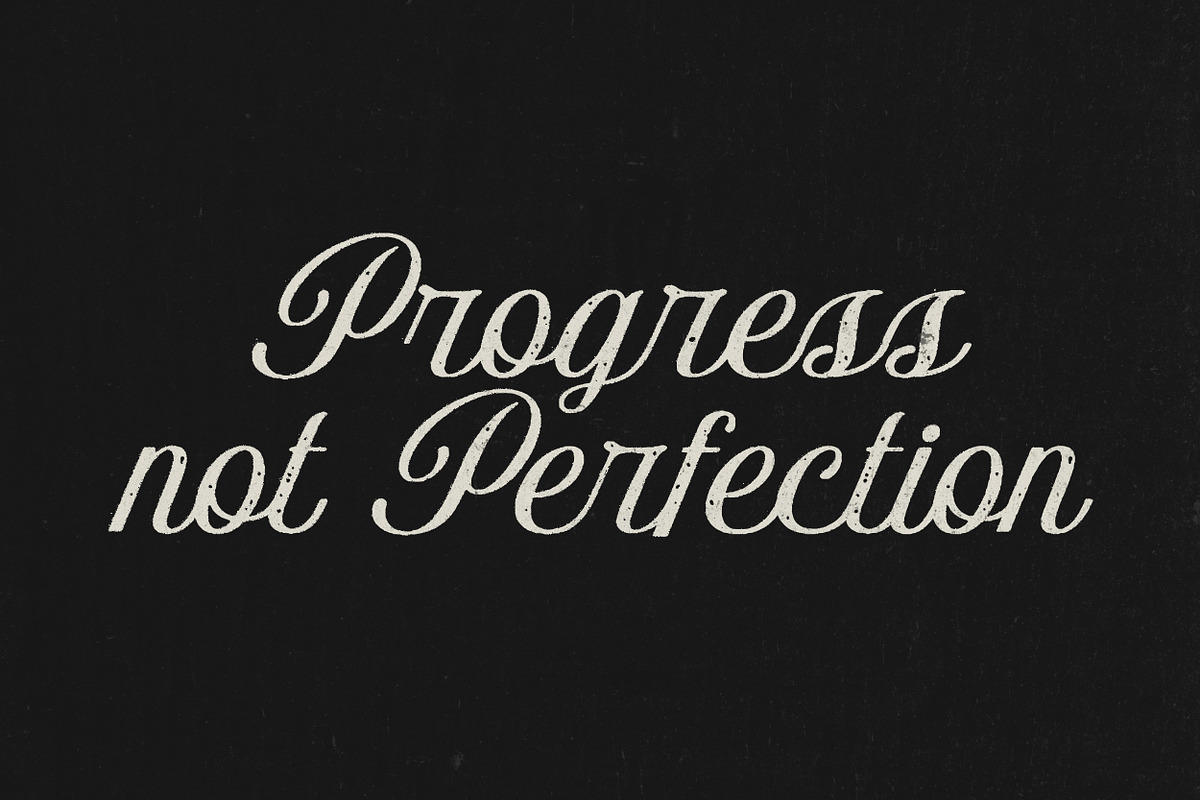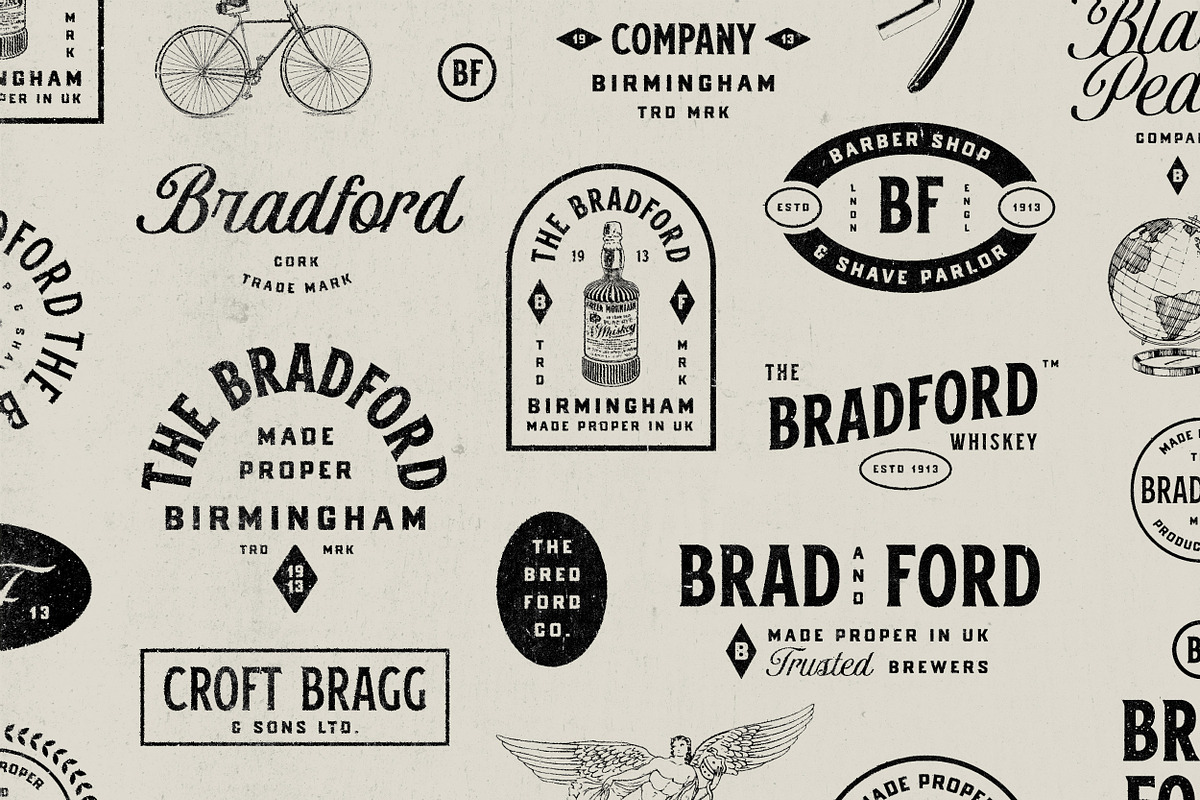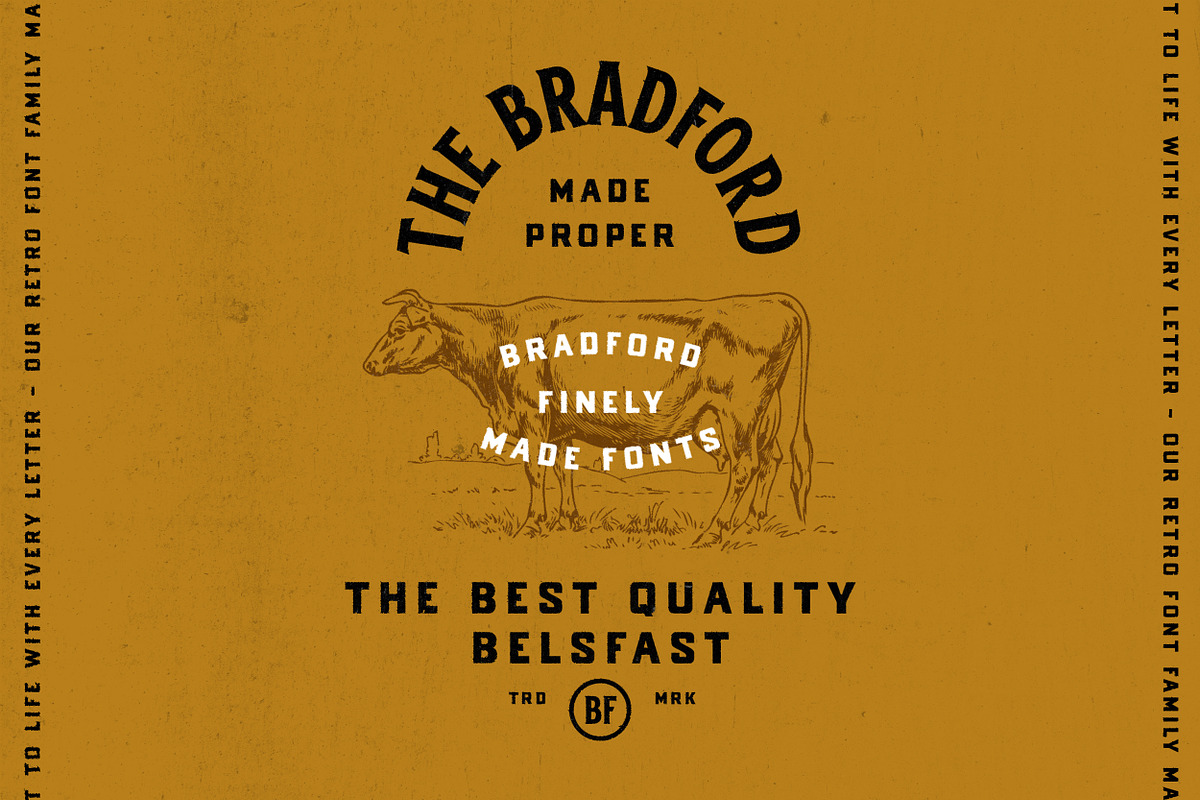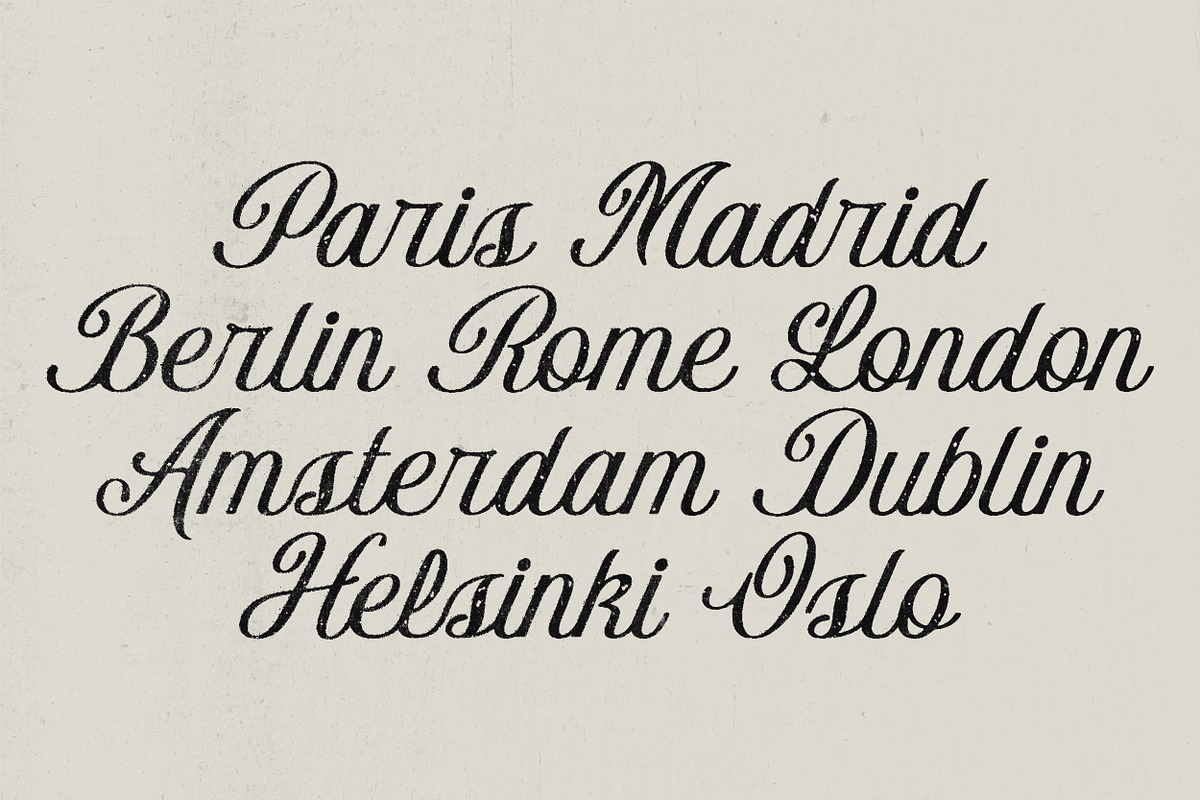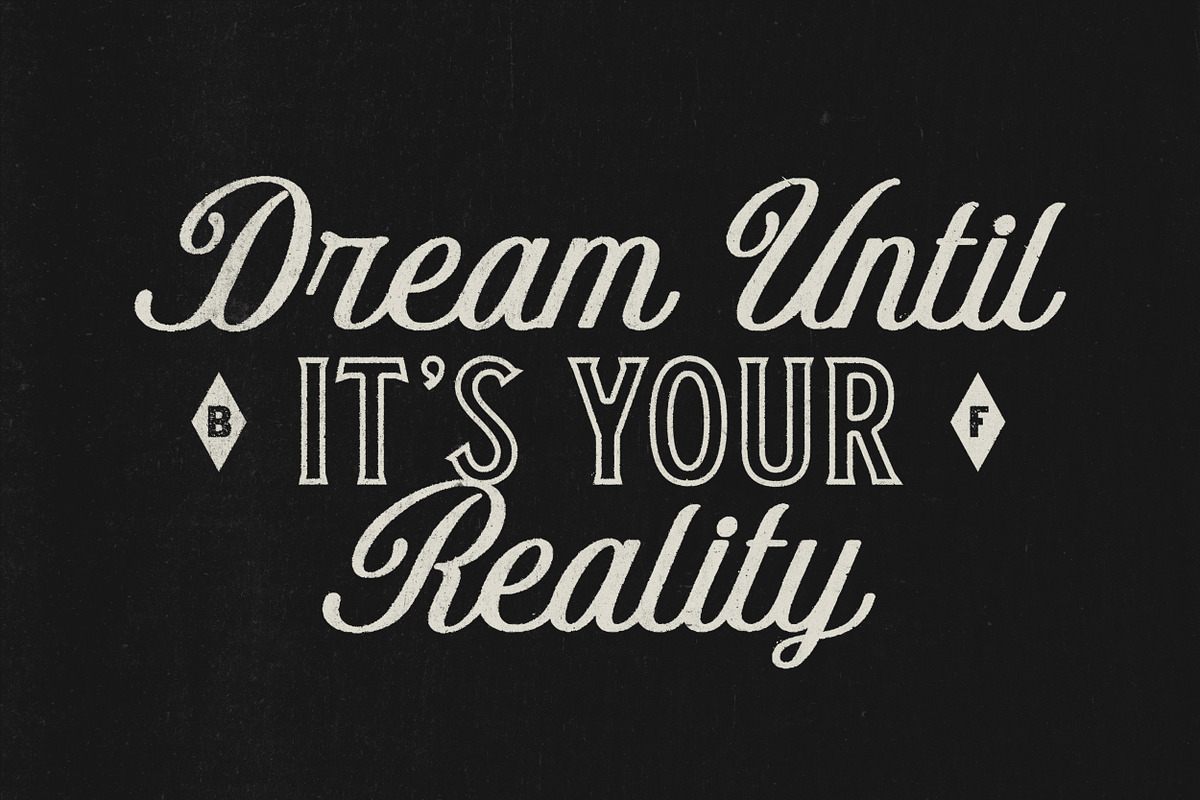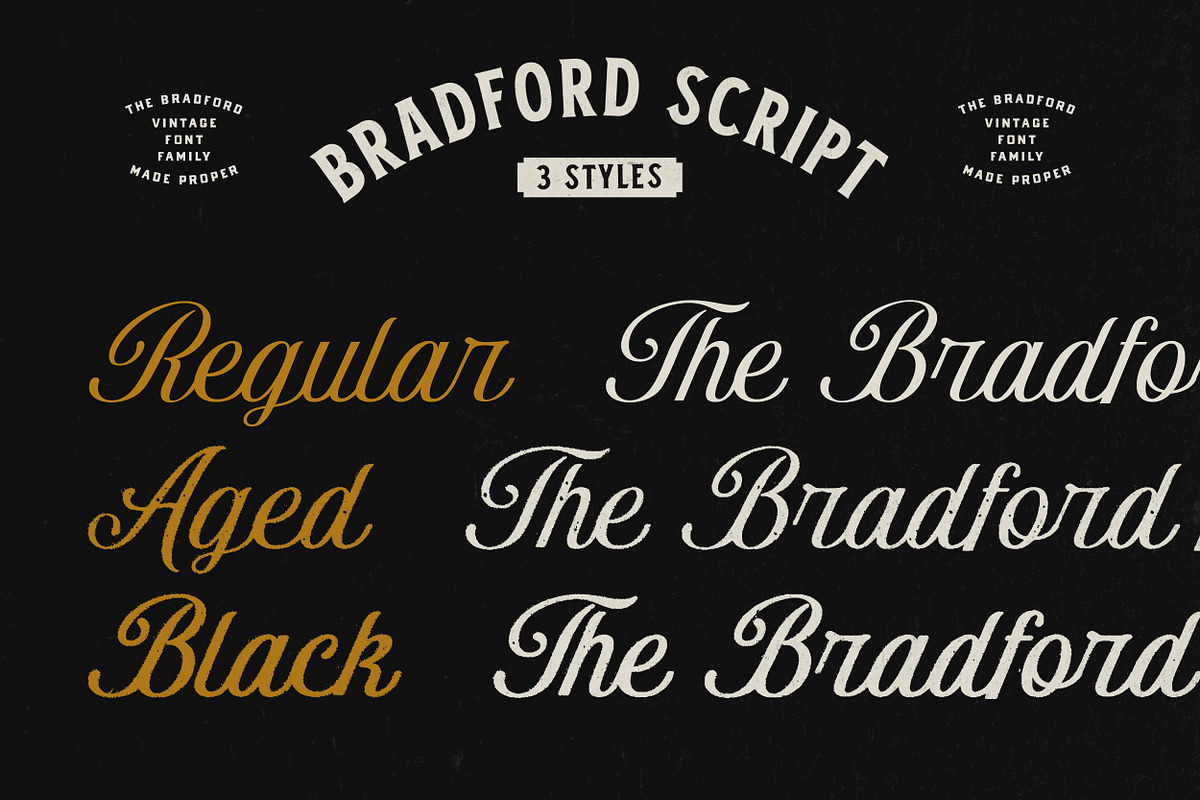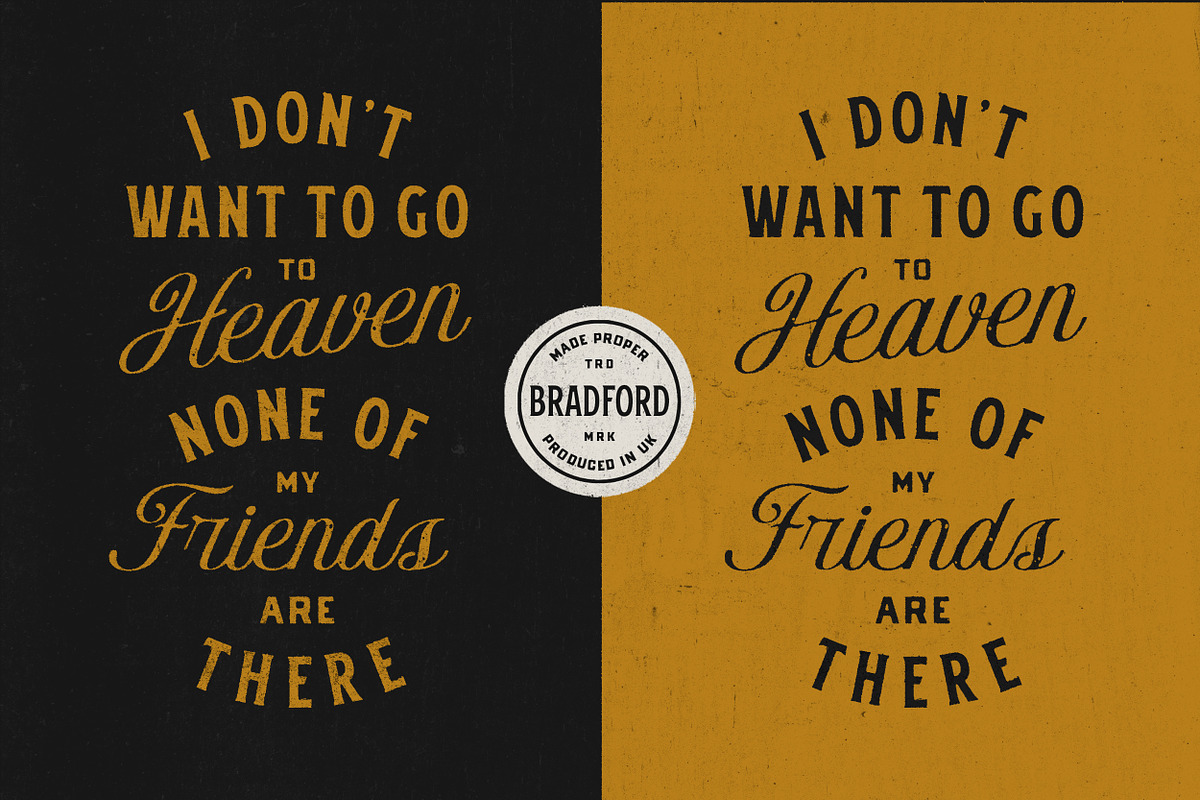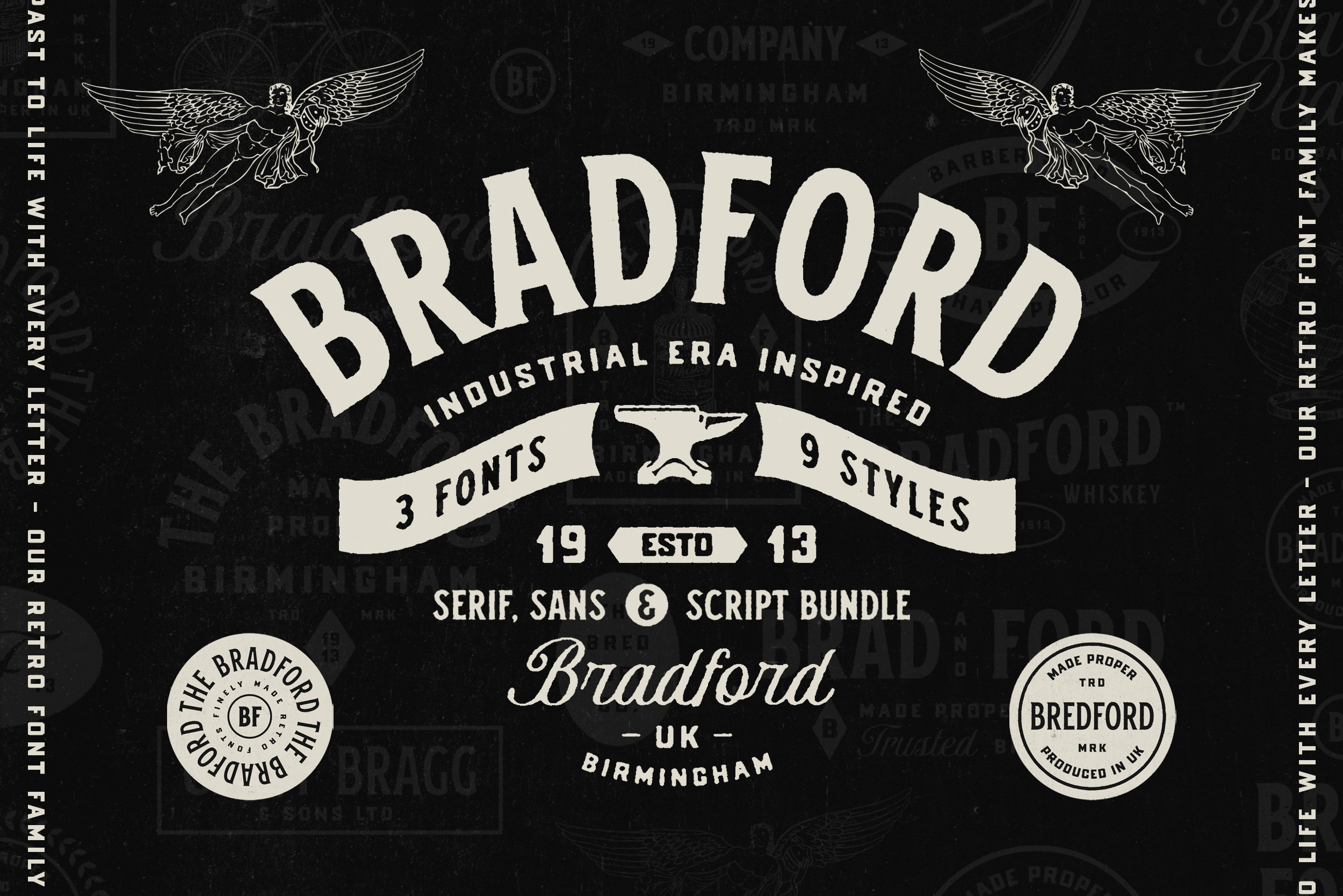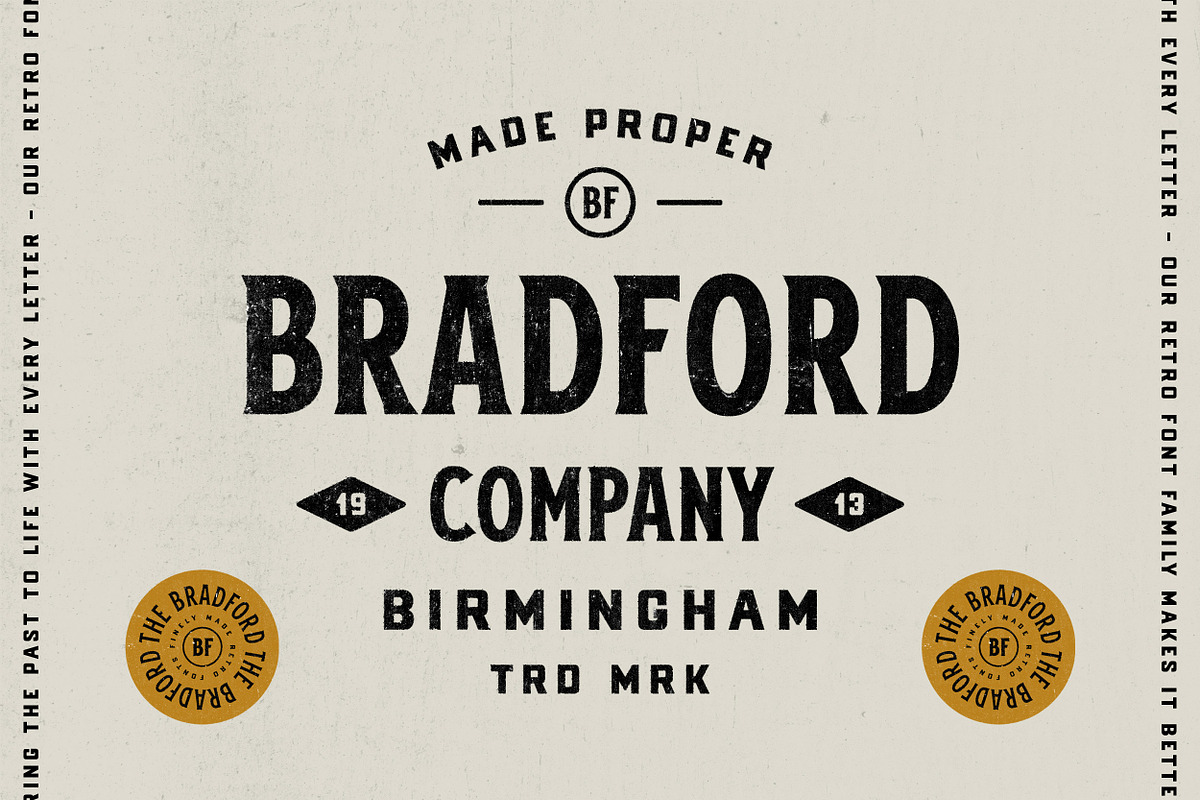
The Bradford Font Family
The Bradford Font Family consists of 3 distinct fonts - Script, Serif, and Sans Serif - with a total of 9 unique styles. Each font within the family has been carefully crafted to provide maximum flexibility and readability, making it easy to find the perfect match for any design project.
The Script font features elegant, flowing letters with a hand-drawn feel, perfect for adding a personal touch to any design. The Serif font boasts bold, sturdy lettering with a classic feel, while the Sans From logos and branding to headlines and body copy, this font family is a timeless addition to any designer's toolkit.
Whether you're designing for a modern-day industrial brand or looking to add a touch of vintage charm to your next project, the Bradford Font Family is sure to deliver.